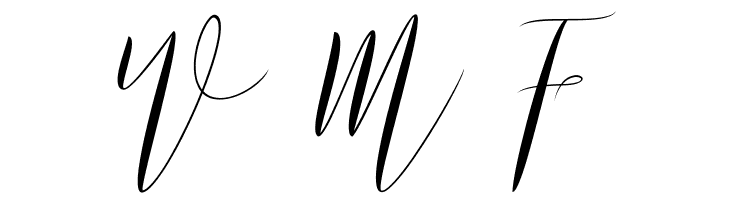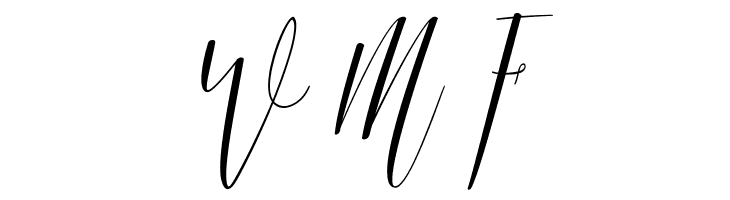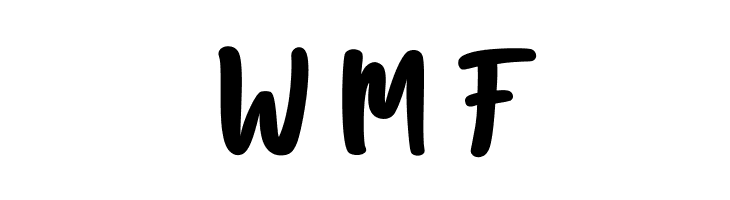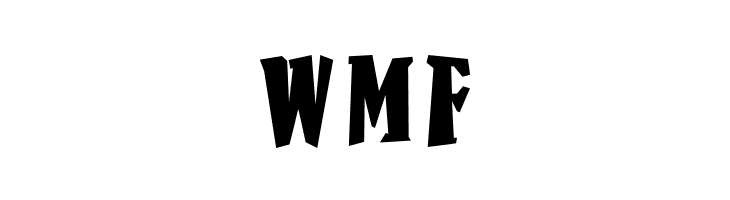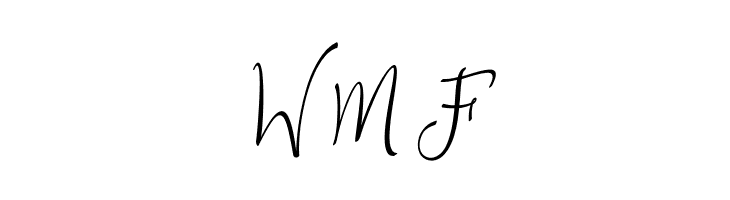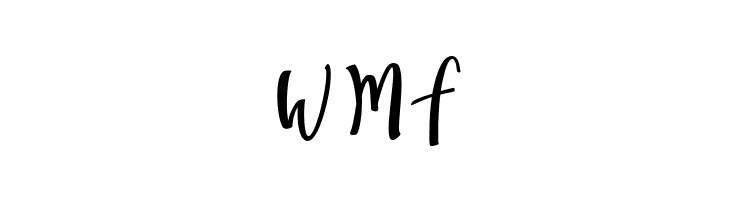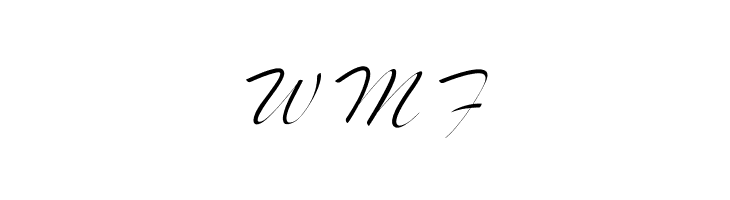
A playful, bold font with rounded, bubbly characters.
A playful, casual handwritten font with smooth, rounded edges.
A playful, rounded font with bold, smooth curves.
An elegant script font with intricate flourishes and a sophisticated style.
A playful, hand-drawn style with bold, uneven strokes and a whimsical charm.
A bold, playful font with a hand-drawn, energetic style.
An elegant, high-contrast cursive script font with flowing, ornate characters.
An elegant script font with flowing, interconnected letters and ornate swashes.
A graceful script font with fluid, cursive strokes and elegant flourishes.
A modern, elegant script font with flowing curves and dynamic strokes.
An elegant script font with flowing, interconnected letters and ornate flourishes.
A playful and flowing script font with elegant curves and a modern artistic style.
A playful, handwritten font with smooth, flowing curves and a whimsical style.
An elegant, flowing script font with a sophisticated style.
A graceful script font with flowing, elegant strokes and high contrast.
A modern, elegant script font with flowing cursive letters and graceful swashes.
A graceful and elegant script font with flowing, cursive strokes.
An elegant and sophisticated cursive font with flowing, ornate letters.
A bold, playful handwritten font with thick strokes and rounded edges.
A bold, dynamic script font with a handwritten, cursive style.
A bold, angular font with a dynamic and edgy style.
An elegant, flowing script font with graceful cursive letterforms.
An elegant script font with flowing, cursive letters and graceful swashes.
A whimsical, hand-drawn font with thin, flowing lines and artistic flair.
A lively and elegant script font with fluid, dynamic strokes.
A bold, playful font with organic, fluid shapes and a lively, dynamic feel.
A bold, playful handwritten font with dynamic strokes and lively character.
A playful, handwritten font with a whimsical and friendly style.
An elegant script font with high contrast and graceful, flowing strokes.
A bold, expressive handwritten font with smooth curves and a modern touch.
A lively and expressive handwritten font with flowing cursive letters.
A playful, bold handwritten font with lively, irregular shapes.